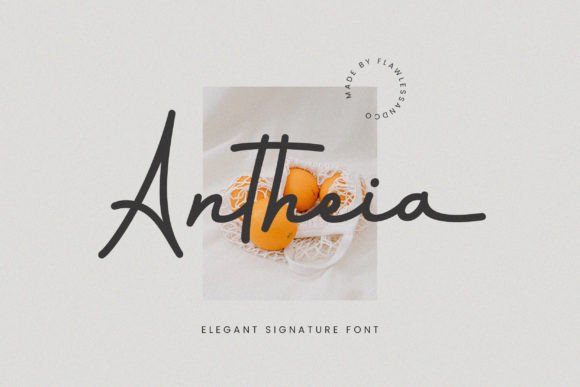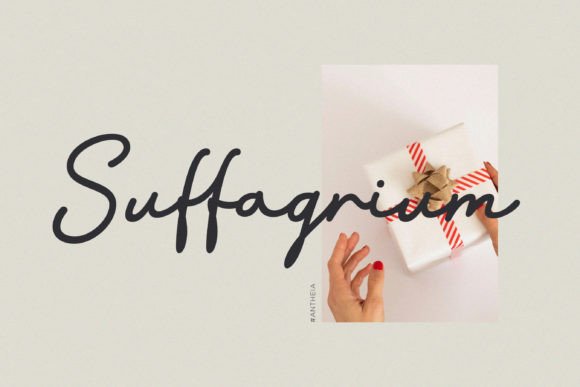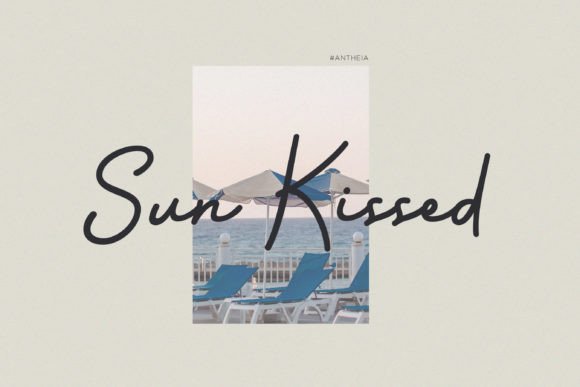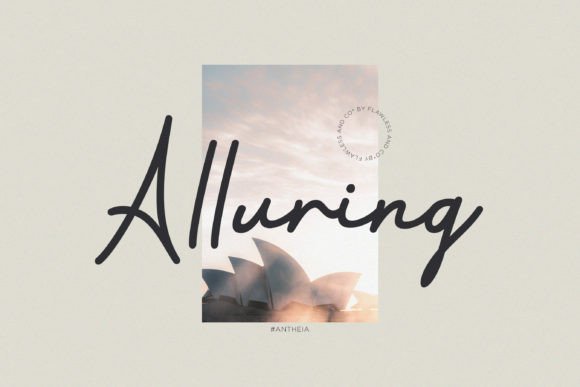
Antheia Font: Elegant Script for Wedding Invitations & Branding!
About the Antheia Font
Experience the unique personality of Antheia Font, a font designed for impact. Experience the epitome of elegance and sophistication with “Antheia,” a graceful signature font that adds a touch of timeless beauty to your designs. With its fluid and refined letterforms, “Antheia” is designed to convey a sense of personal style and class.
Antheia thrives in applications requiring understated elegance. It excels in short headlines, logos, and branding elements where its refined forms create a sophisticated impression. Consider it for invitations, boutique signage, or high-end product packaging. However, its delicate nature makes it unsuitable for body text or UI elements where readability is paramount. Long paragraphs set in Antheia would be difficult to read.
Pairing Antheia effectively requires a contrasting but complementary typeface. A clean, geometric sans-serif like Montserrat or a neutral serif like Lora would provide a strong counterpoint, balancing its graceful curves with modern clarity. For a more playful approach, a handwritten script font could add a touch of informality without detracting from Antheia’s inherent sophistication.
Antheia’s core personality is sophisticated and elegant, conveying a sense of timeless quality and understated luxury. Brands seeking to project a refined, high-end image will find it a valuable asset.
Antheia Font Usage Examples
Antheia Font Example